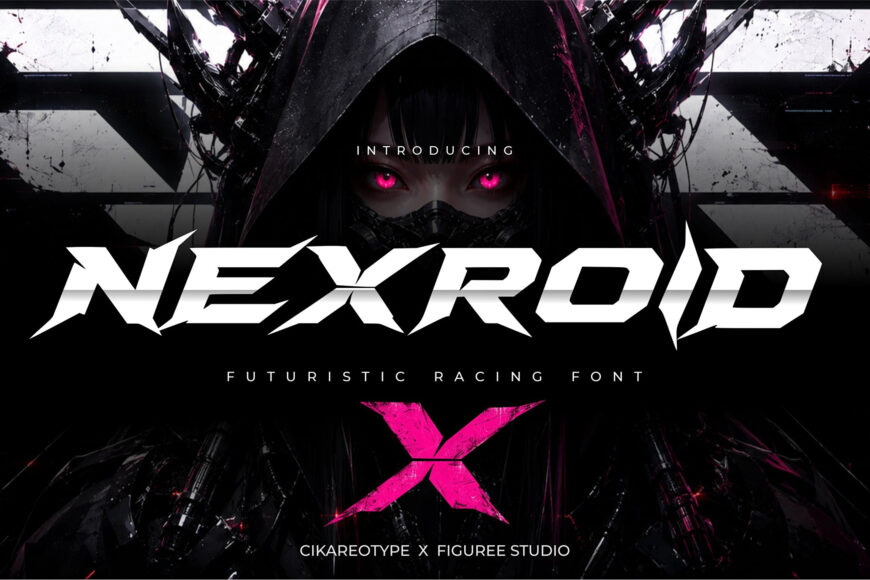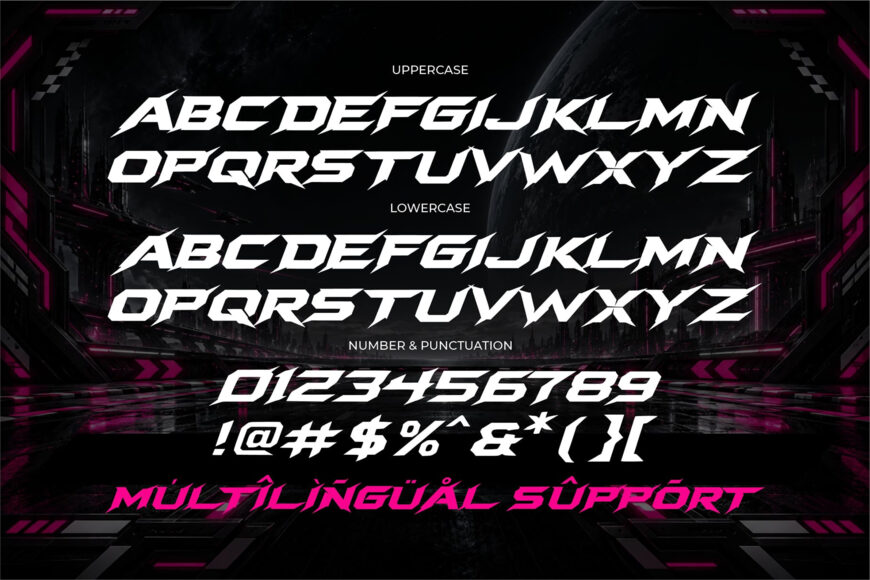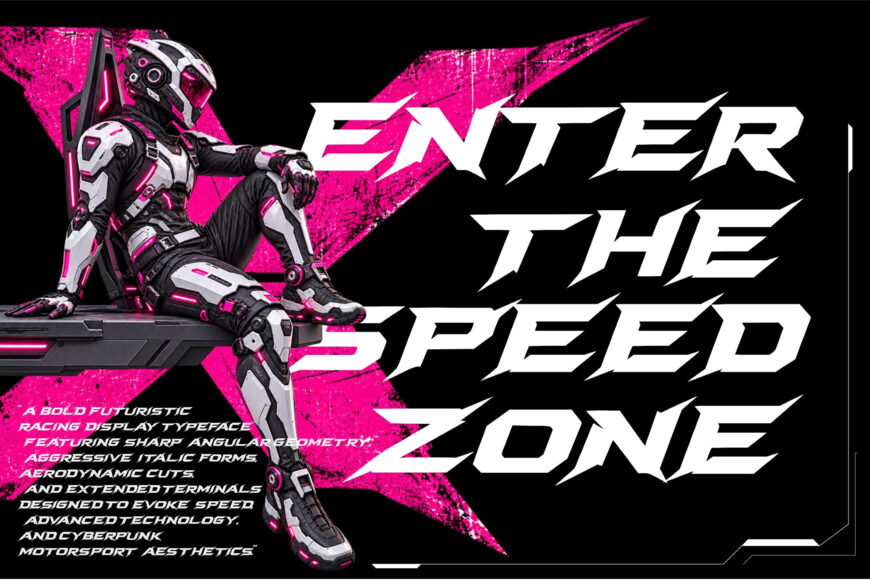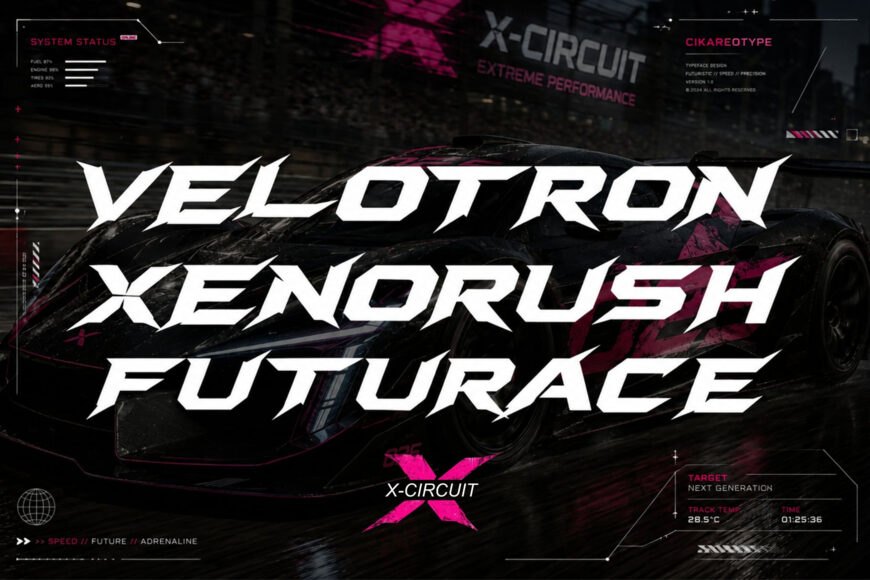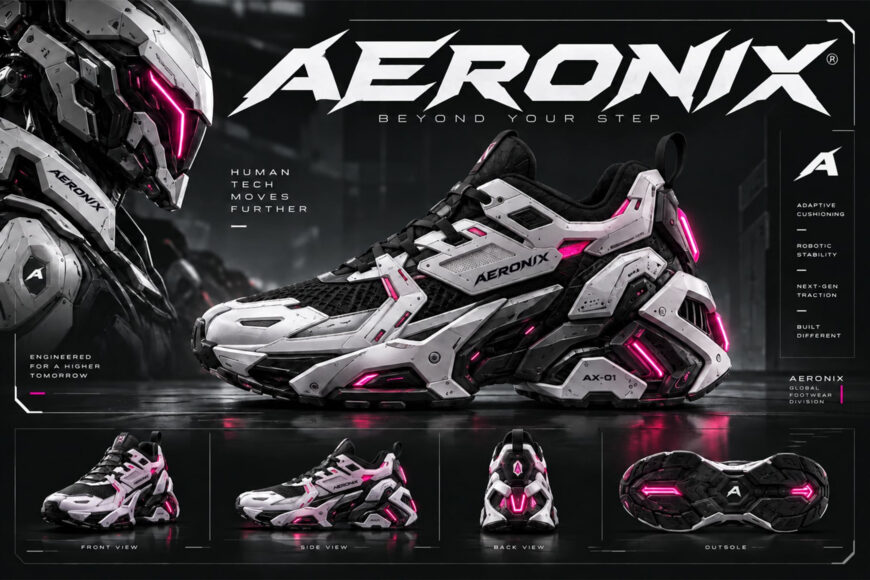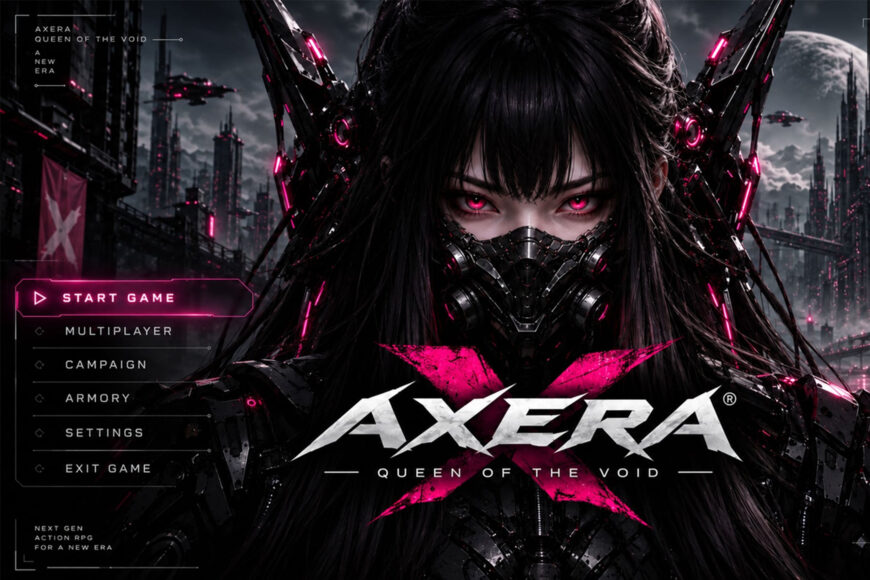
Unleash high-speed cyberpunk energy, razor-sharp mecha spikes, and futuristic adrenaline with Nexroid! Its high-impact, high-octane posture brings instant sci-fi dominance to display titles, gaming logos, and sports graphics.
Ideal for esports tournament branding, cyberpunk game UI, racing apparel, automotive logos, sci-fi poster titles, tech event banners, and custom Cricut or Silhouette craft SVG creations!